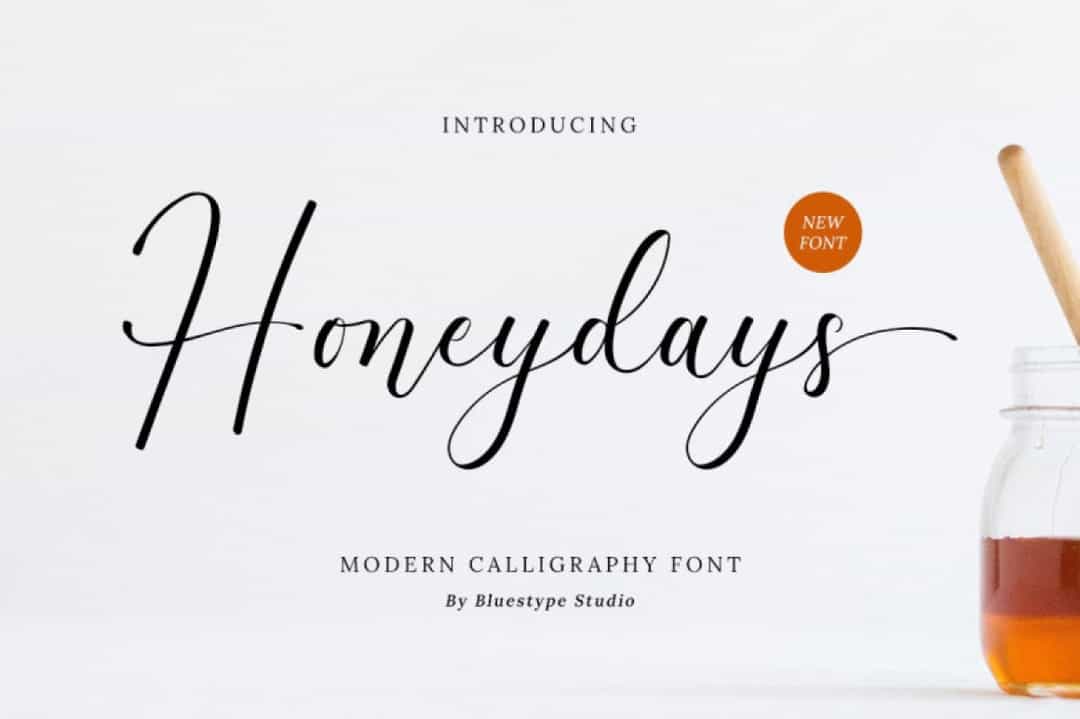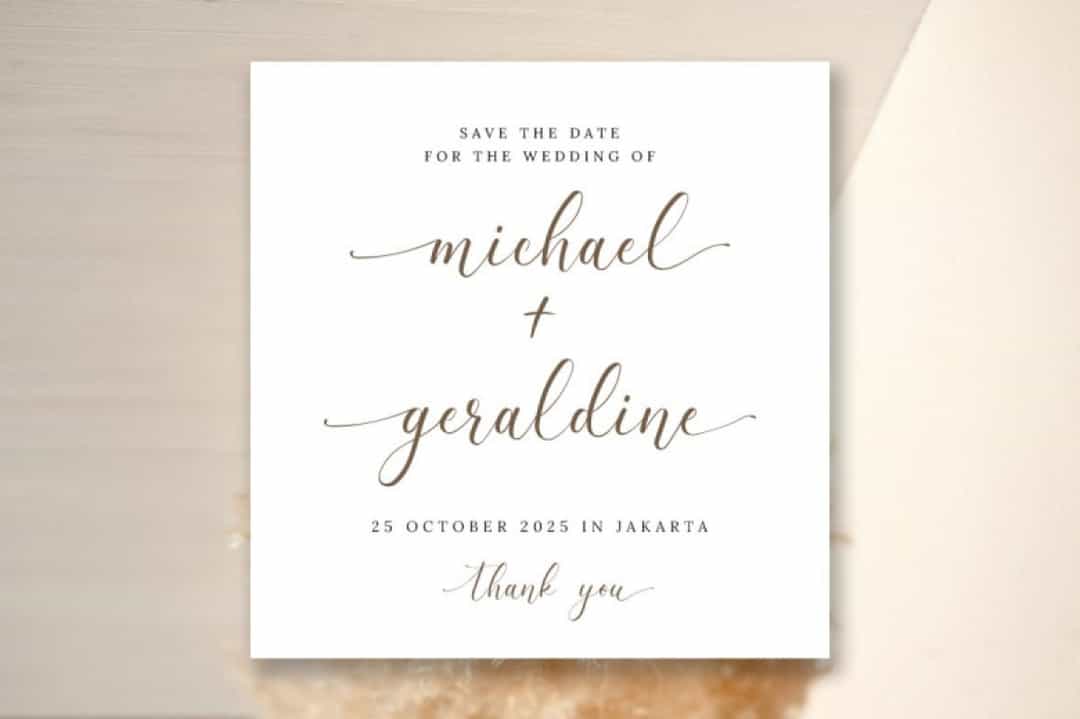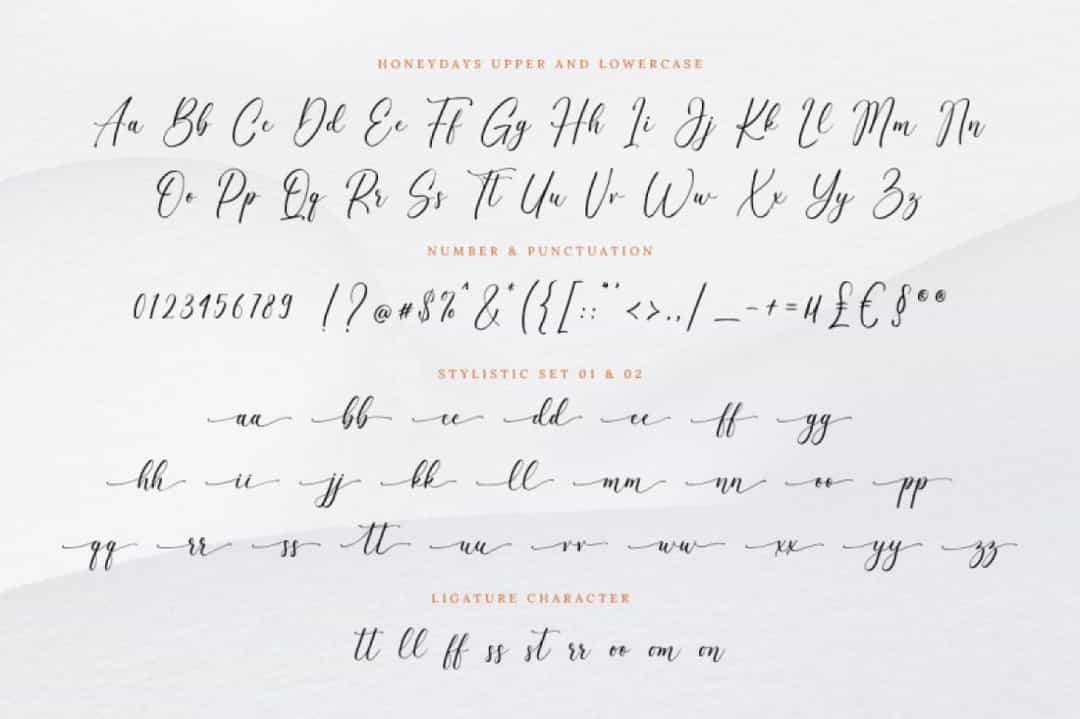
Honeydays is an exquisite script calligraphy font with natural feel and modern aesthetic, making it the ideal font choice to bring life to your most creative projects. Get inspired by its simple contemporary design!